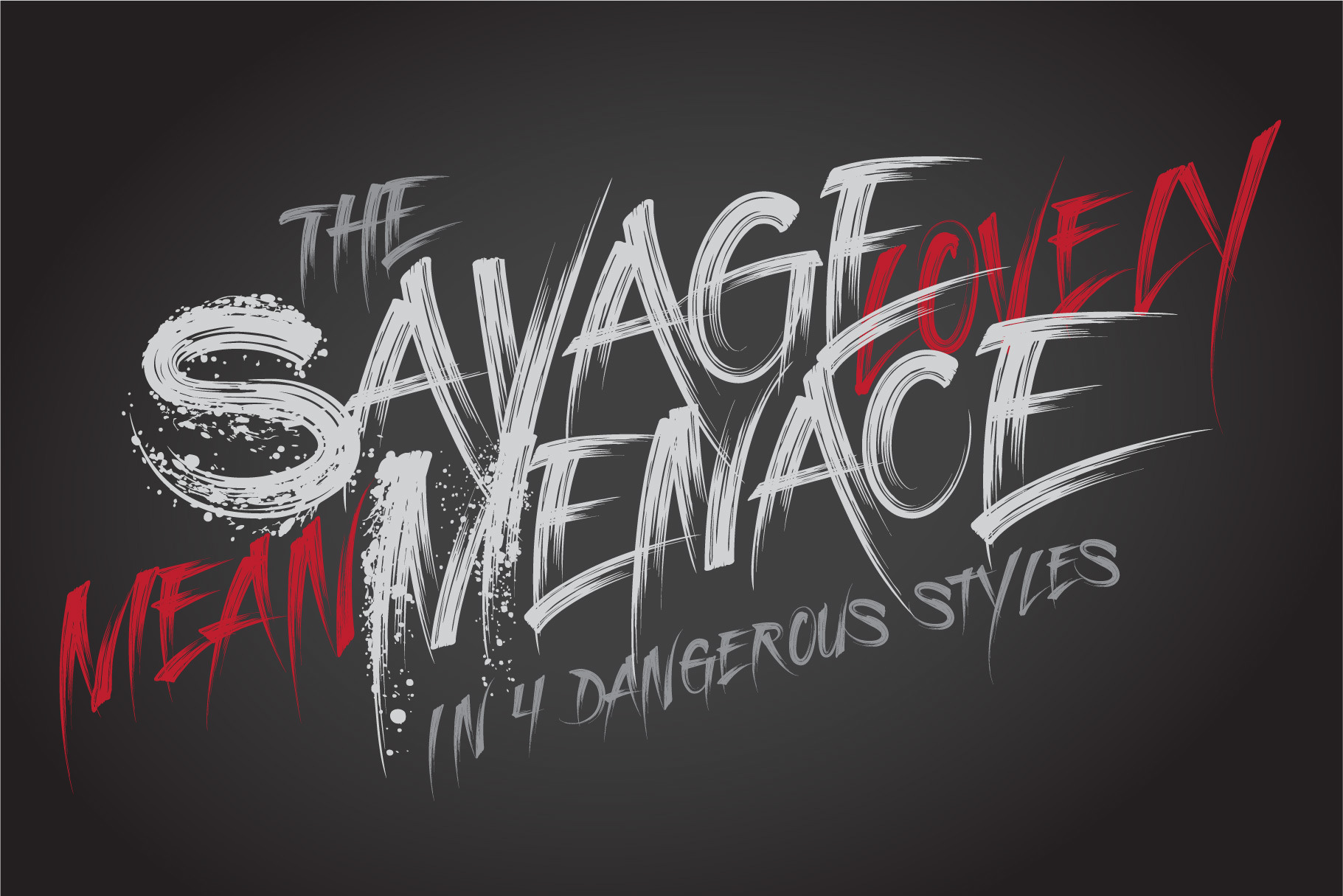
Graffiti Fonts | Strokes Family
The Strokes Family includes 4 very, very, very highly detailed styles. This family of fonts was built to emulate fast strokes in paint or marker & to retain a realistic look even at very large sizes. the Strokes family is part of the official Graffiti Fonts® collection. Each of the 4 styles includes about 250 glyphs including basic multilingual support.